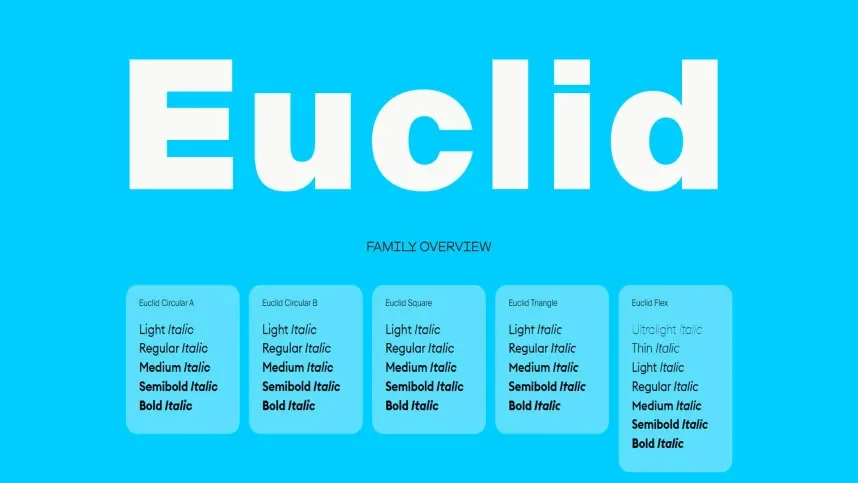
Euclid Font is a geometric sans-serif typeface designed to address challenges in readability and brand consistency. Its clean, minimal letterforms ensure legible text across digital and print media while maintaining a contemporary visual identity.
This typeface features precise, even strokes, open counters, and slightly rounded terminals. The font family includes multiple weights and stylistic alternates, providing flexibility for headings, logos, UI elements, and marketing materials. Euclid’s technical structure supports both formal and modern design aesthetics.